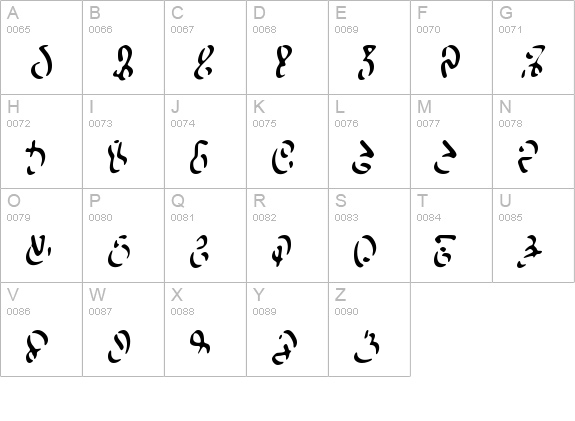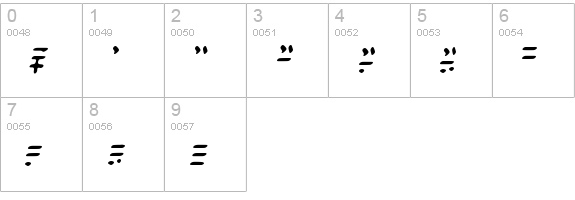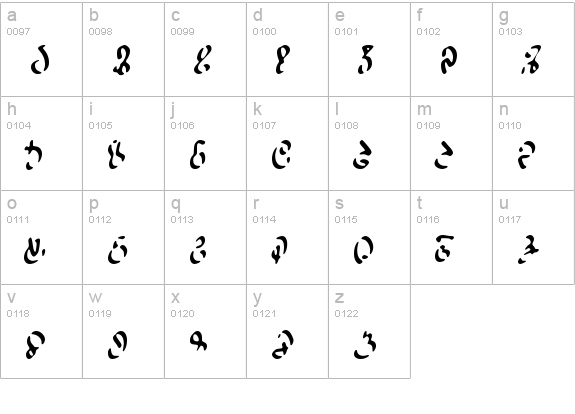
WizardSpeak Worn Font Details
WizardSpeak Worn font is a captivating and enchanting typeface that will transport you to a magical realm. Its worn and weathered appearance gives it a sense of mystery and ancient wisdom. Each letter is intricately designed with intricate details and delicate curves, making it a truly unique and eye-catching font. With its whimsical and ethereal qualities, WizardSpeak Worn font is perfect for adding a touch of magic to any project. Whether you're designing a fantasy book cover, creating mystical invitations, or crafting enchanting posters, this font will instantly captivate your audience and transport them to a world of wonder. What makes WizardSpeak Worn font even more special is that it is freely available to download at FontsMarket.com. You can easily access this breathtaking font and unleash your creativity without any restrictions. Whether you're a professional designer or an aspiring artist, having access to high-quality fonts like WizardSpeak Worn font can truly elevate your work. So, let your imagination run wild and embrace the enchantment of WizardSpeak Worn font. Download it for free at FontsMarket.com and add a touch of magic to your designs today.